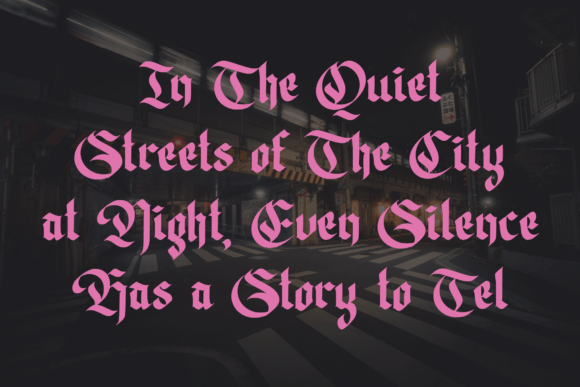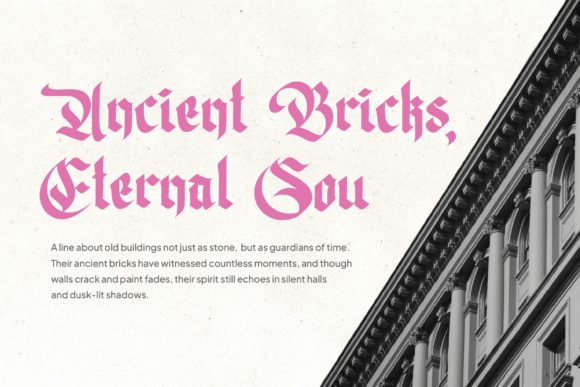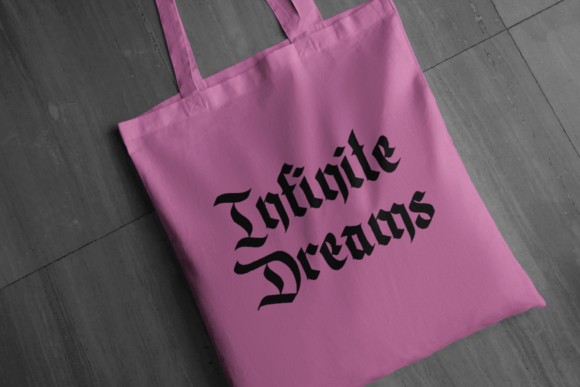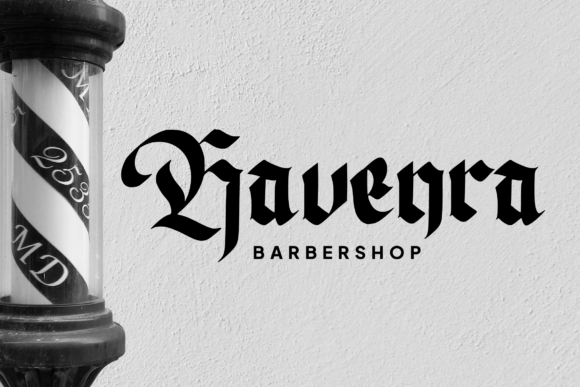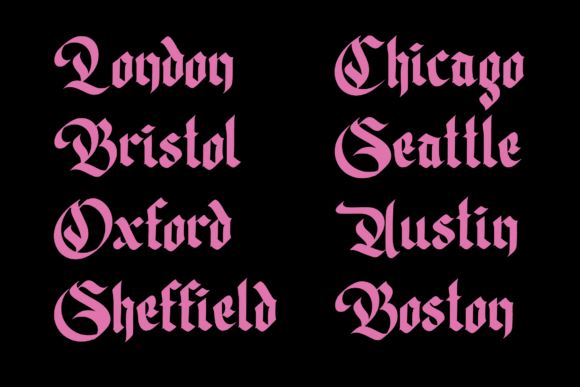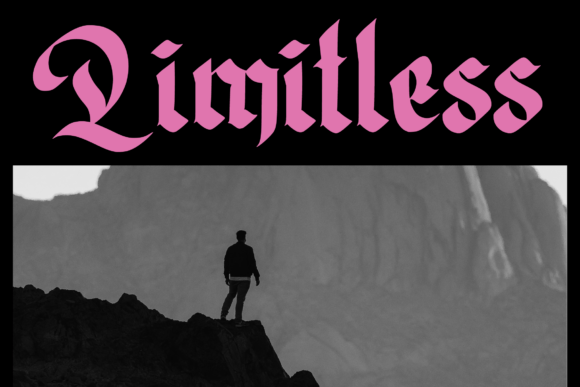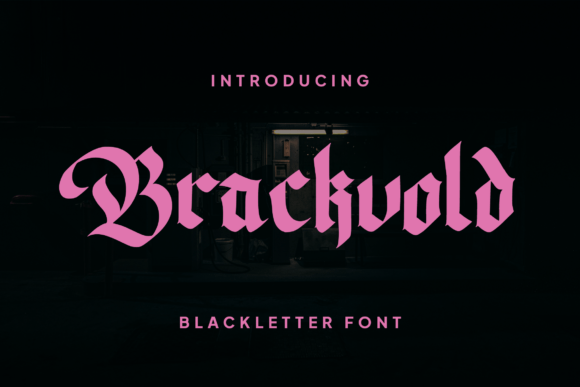
Unveiling Brackvold Font: The Epitome of Gothic Elegance and Modern Boldness
In the realm of typography, few fonts manage to encapsulate the essence of gothic tradition while embracing modern aesthetics as seamlessly as Brackvold. This highly premium blackletter font stands at the crossroads of medieval ancestry and current urban-style influences, making it an indispensable tool for creative minds aiming to leave a lasting impact. Brackvold is not just a font; it’s an experience, a statement that bridges the arcane charm of ancient calligraphy with the edgy boldness of contemporary design.
The Design Philosophy of Brackvold
The design of Brackvold is a masterclass in balancing contrasting elements. It expertly melds the mystical and somewhat mysterious allure of gothic calligraphy with the sharp, polished look of modern typography. This fusion results in a font that is both timeless and timely, capable of evoking the grandeur of ancient manuscripts while fitting right into the urban, stylized settings of modern design.
Key Characteristics of Brackvold
Brackvold boasts several key characteristics that set it apart from other blackletter fonts. Two of its most notable features are its striking visual impression and exceptional legibility.
Striking Visual Impression
Brackvold’s high-contrast brush strokes and razor-sharp terminals are immediately captivating. These design elements work in harmony to create a font that commands attention and exudes an air of mystery and elegance. The high contrast between thick and thin strokes adds a dynamic range to the font, making it visually engaging and perfect for projects where making a bold statement is paramount.
Exceptional Legibility
Despite its intricate, ornamental details, Brackvold is remarkably legible. This is no small feat, as many blackletter fonts can be challenging to read, especially in smaller sizes or when used for longer texts. Brackvold’s designers have carefully crafted each letterform to ensure that the font remains distinctly readable, even in complex layouts or when conveying detailed information. This ensures that your message is communicated effectively, every time.
Ideal Applications for Brackvold
Brackvold’s unique blend of medieval charm and modern boldness makes it versatile for a wide range of applications. Here are a few areas where Brackvold can make a significant impact:
- Branding and Logotypes: Brackvold’s distinctive character makes it perfect for brands looking to stand out with a bold, memorable identity.
- Packaging Design: Add a touch of gothic elegance and modern edge to your product packaging, making it instantly recognizable on crowded shelves.
- Advertising and Marketing Materials: Use Brackvold to create compelling, attention-grabbing ads and promotional materials that speak to a sophisticated audience.
- Web Design: Incorporate Brackvold into your website design to add a layer of sophistication and intrigue, setting your site apart from the digital norm.
Brackvold is more than just a font; it’s a design statement. It offers creatives the opportunity to tap into the haunting mystique of gothic tradition while still benefiting from the bold, edgy qualities of modern typography. Whether you’re a designer looking to elevate your brand’s visual identity or a craftsperson seeking to add depth and character to your work, Brackvold is an exceptional choice. Its striking visual impression and exceptional legibility make it a versatile tool capable of enhancing a wide range of projects. Embrace Brackvold, and let its unique blend of old-world charm and contemporary style guide your creative endeavors to new heights.